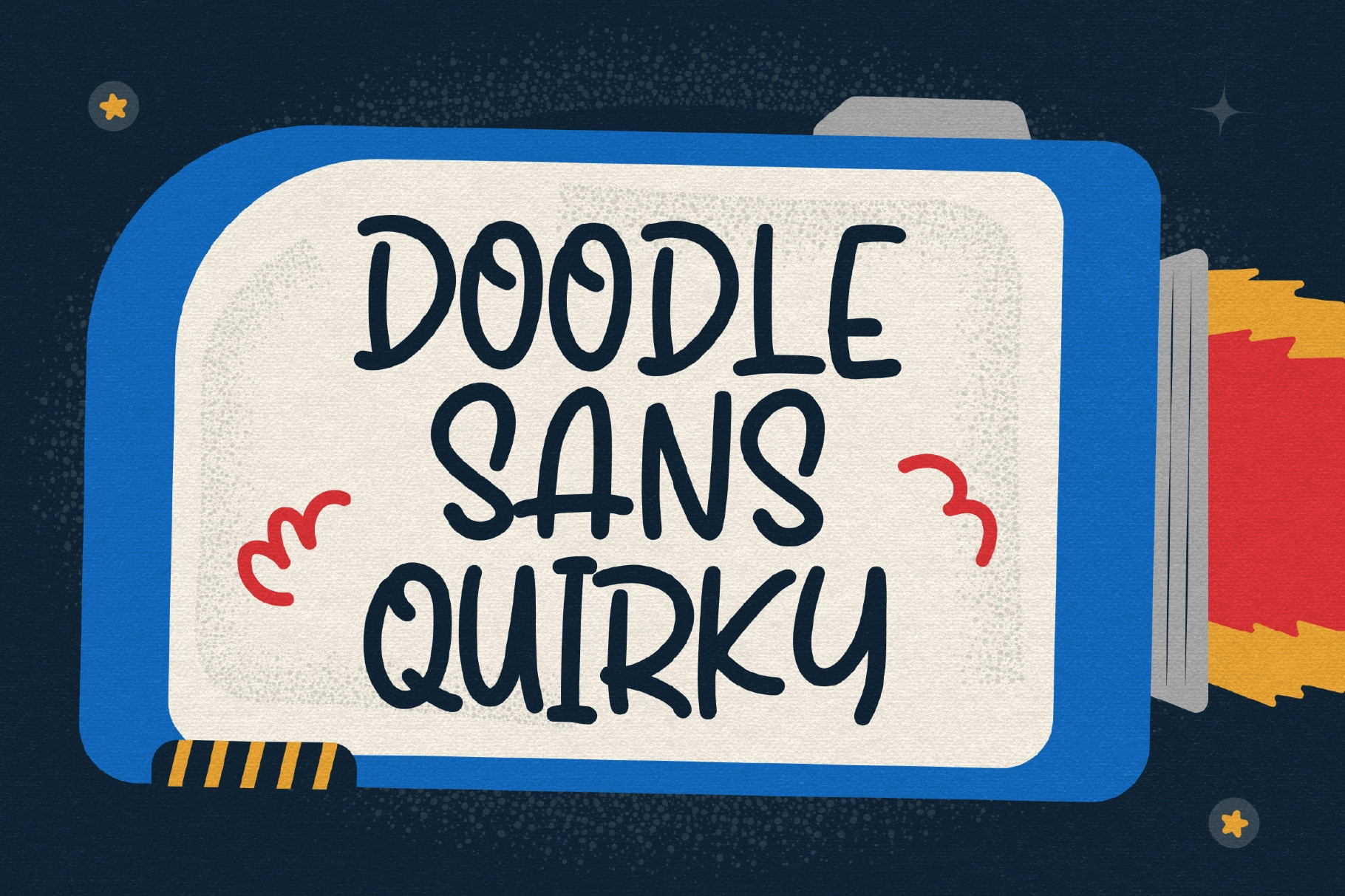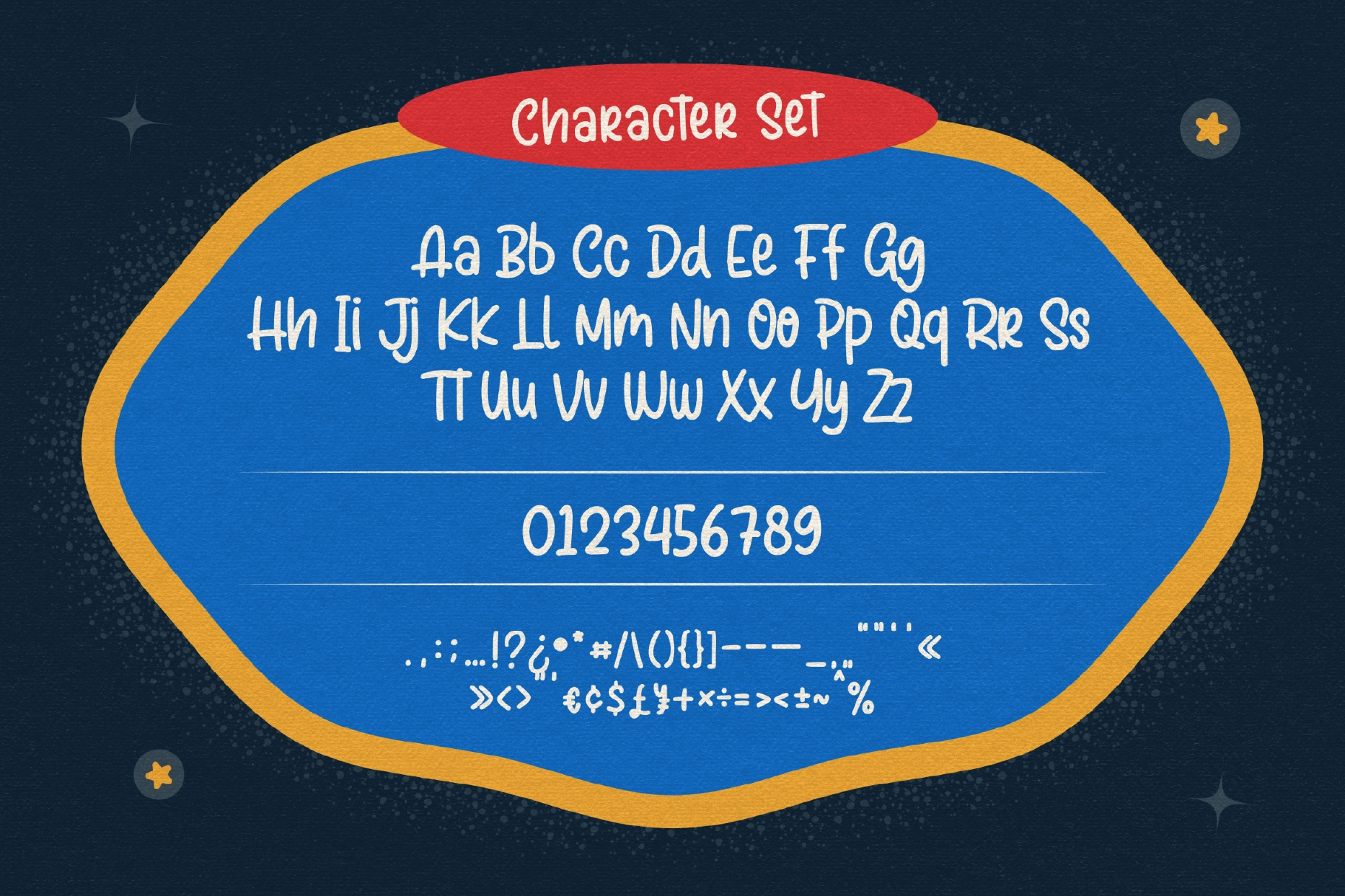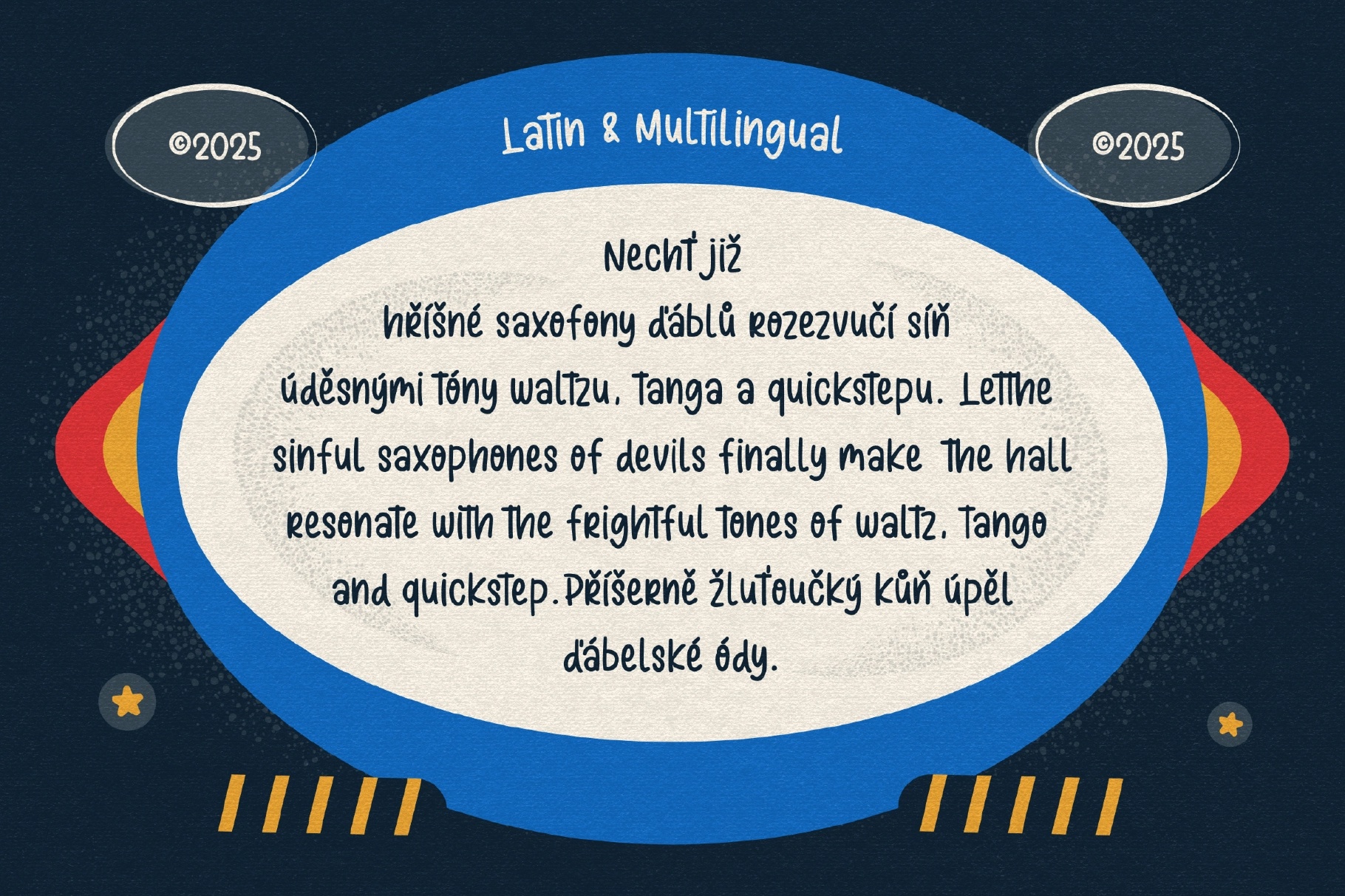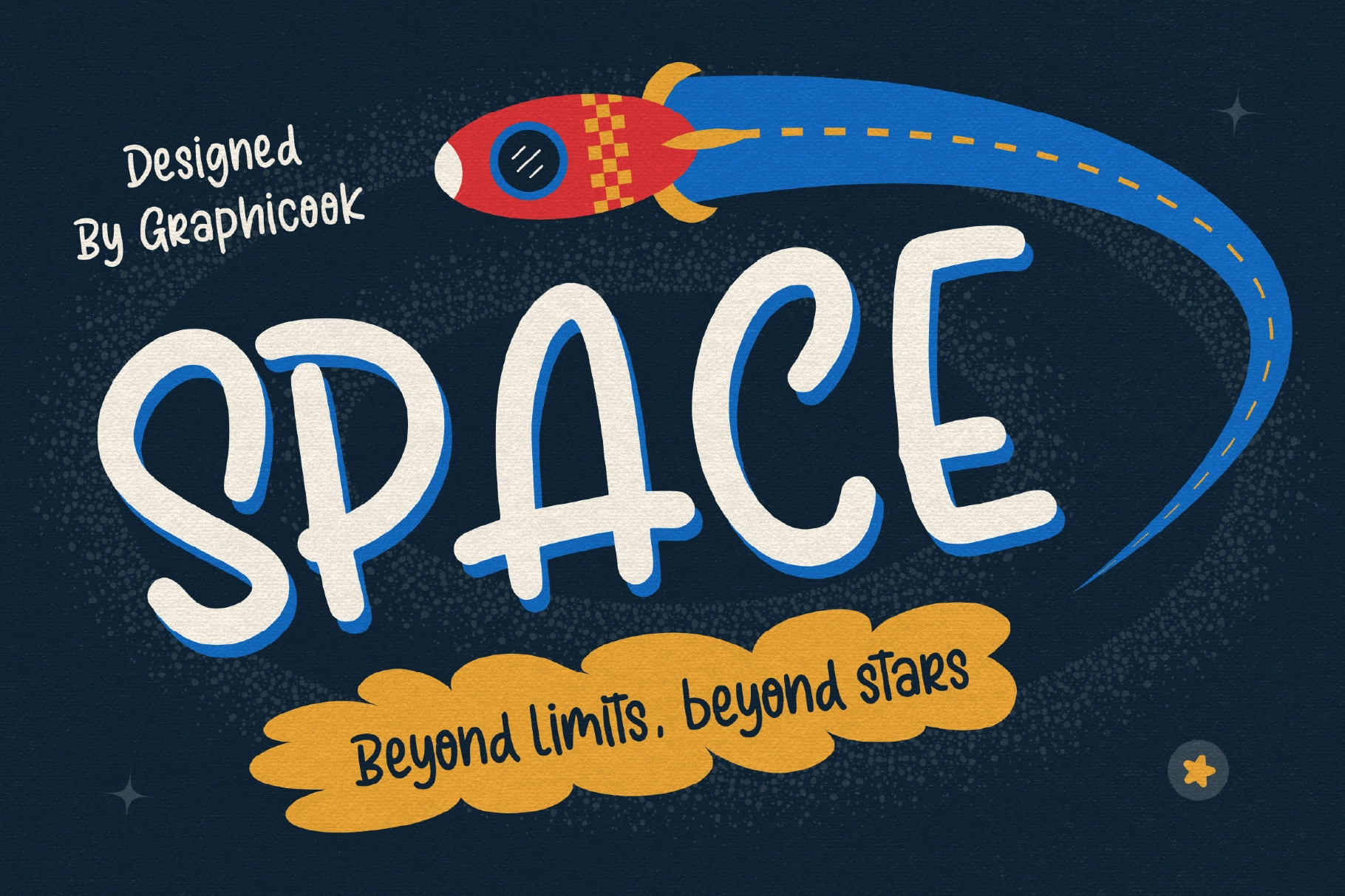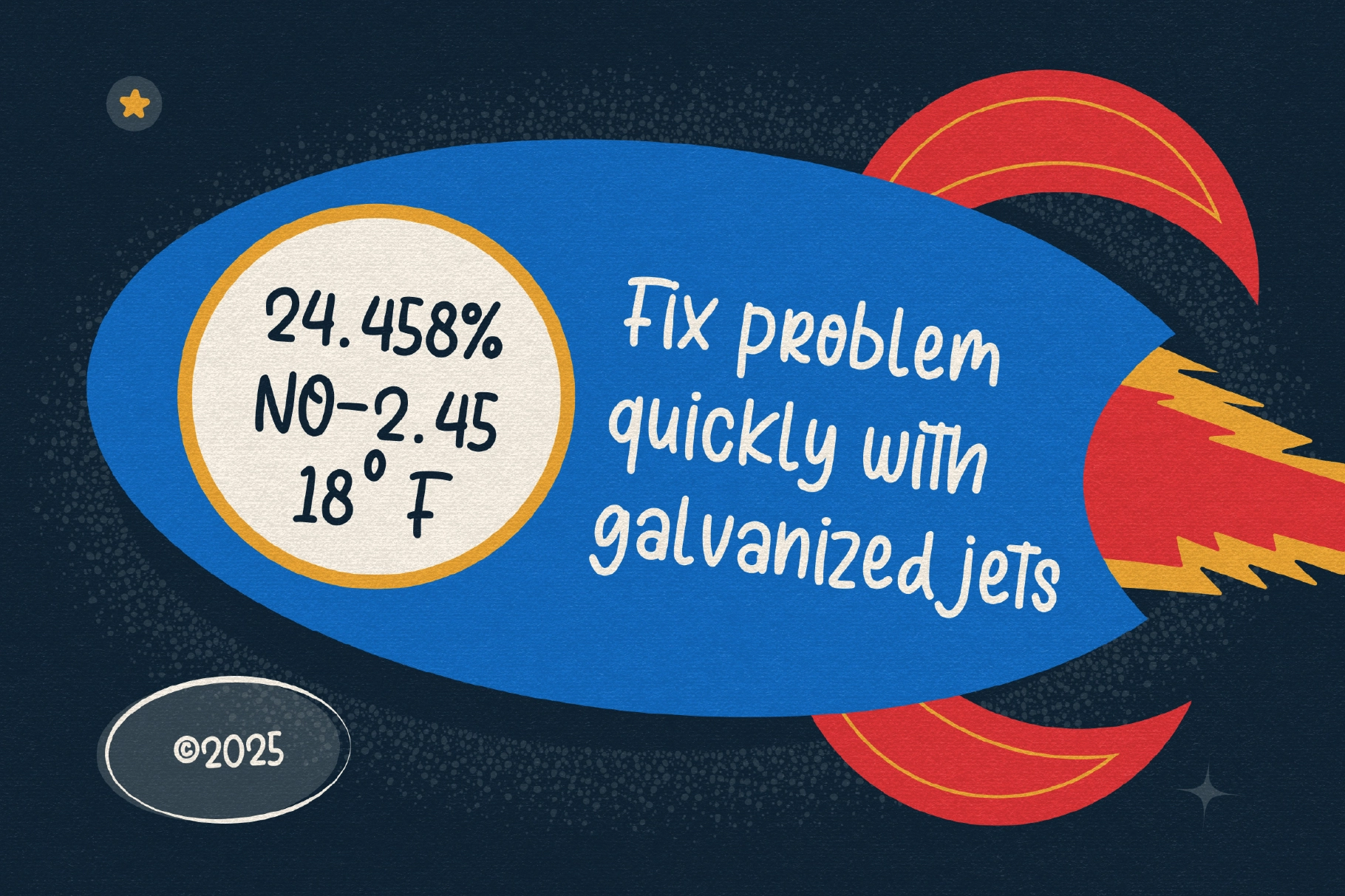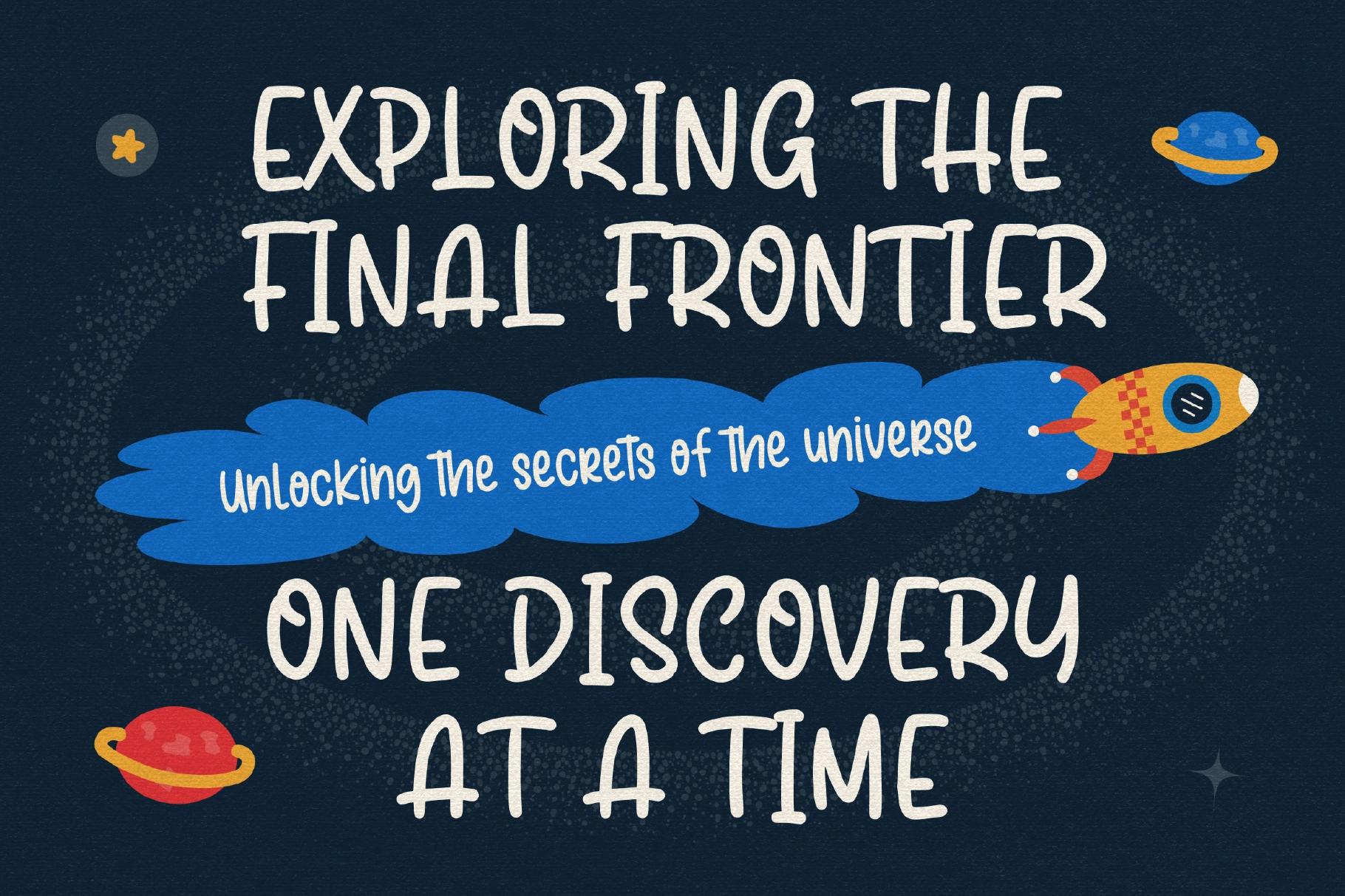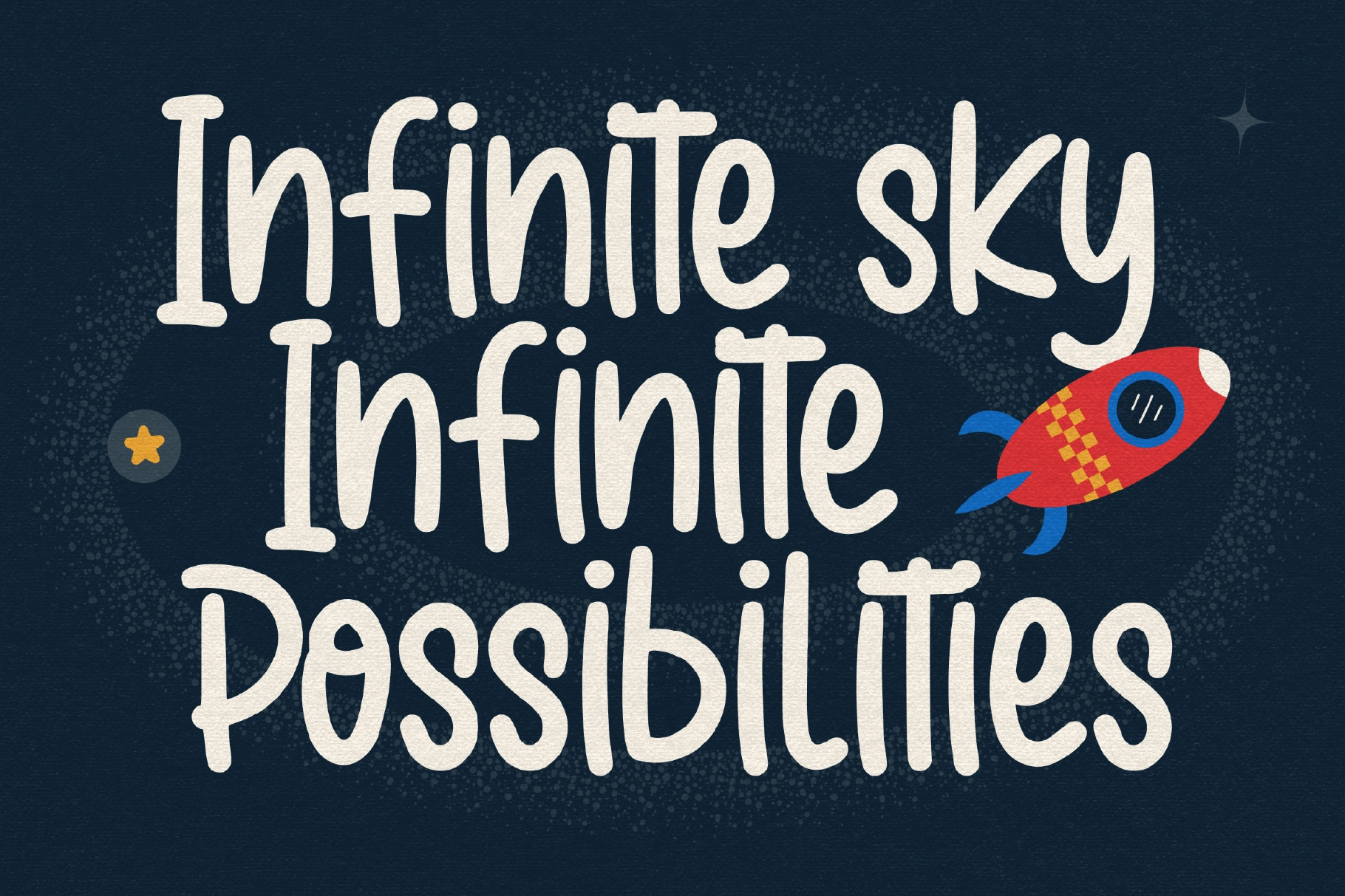
Squigglyne Font
Squigglyne is a sans-serif font with a handwritten, doodle-inspired style that feels expressive and fun. Great for educational materials or playful, lighthearted designs.